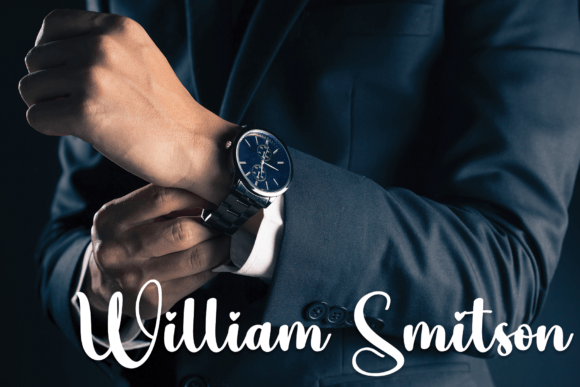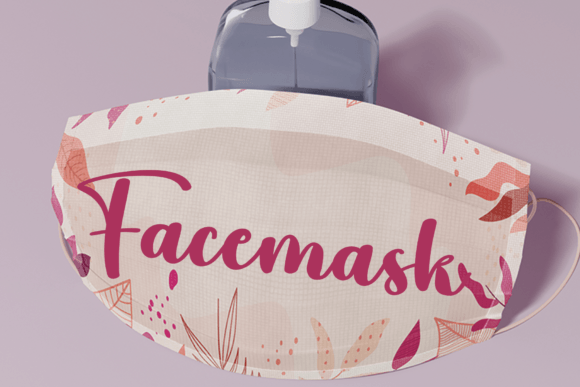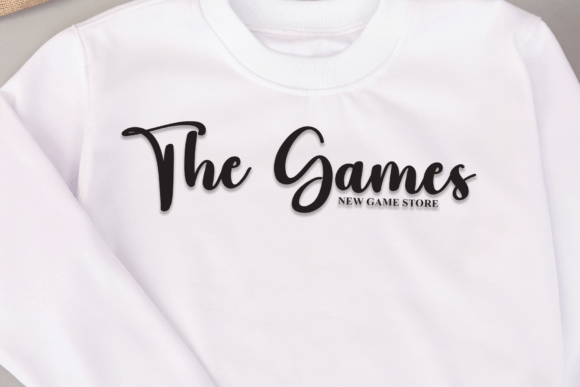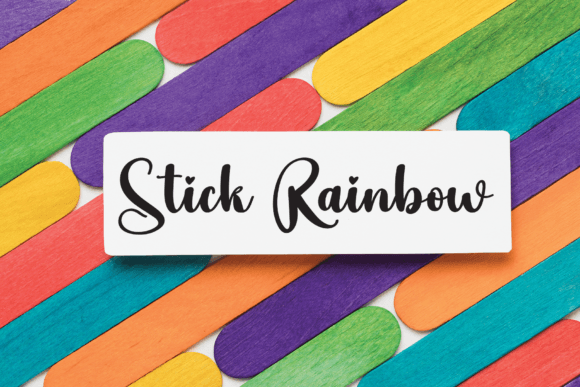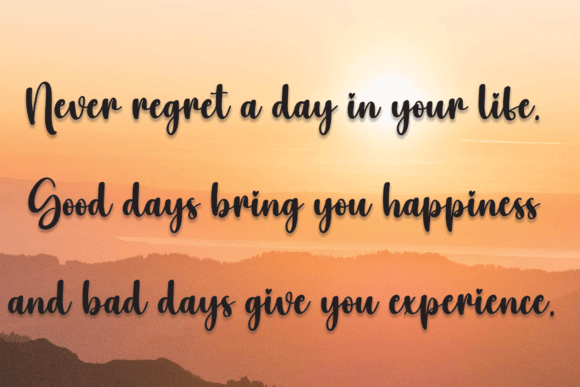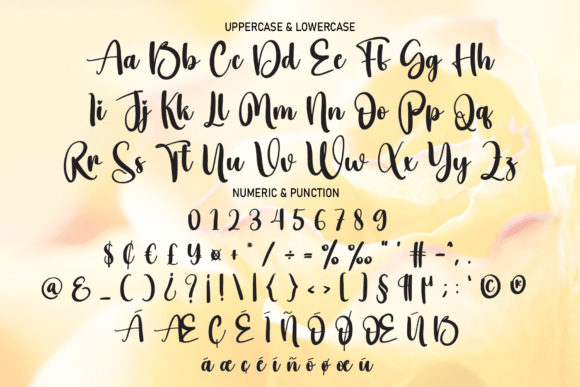
Introduction to Mild Font
As a designer, you know the thrill of finding the perfect font for your next project. It’s that ‘aha’ moment when everything falls into place, and your design comes alive. For me, it was when I stumbled upon the Mild Font, a game-changing addition to any creative project. Its unique, handwritten style is a breath of fresh air in a world of digital design.
The Mild Font is more than just a font – it’s a design resource that adds a personal touch to your work. With its high-quality, elegant lines, it’s perfect for wall displays, wedding invitations, and social media post logos. And the best part? It’s available for free download, making it an instant favorite among designers.
Whether you’re working on a commercial project or just want to add some personality to your stationery, the Mild Font is a valuable addition to your design arsenal. Its versatility and beauty make it a must-have for any designer looking to elevate their work.
Key Features of Mild Font
- High-quality design for creative projects: Mild Font is designed to add a touch of elegance to any project, making it perfect for use in graphic design, web design, and more.
- Transparent background: This feature allows for seamless integration with any design, giving you the freedom to use Mild Font in a variety of backgrounds and settings.
- Unique characteristics: Mild Font features a distinctive, hand-drawn style that sets it apart from more generic fonts, making it a great choice for designers who want to add some personality to their projects.
Honest Review: Mild Font
I recently stumbled upon the Mild Font and I must say, it’s been a refreshing addition to my design arsenal. This high-quality font has been a game-changer for my creative projects, especially when paired with a transparent background.
- Wide range of applications: From headings to body text, Mild Font adapts seamlessly to various design scenarios.
- Stylish and versatile: The font’s elegant design and versatility make it perfect for a wide range of creative projects, from brochures to websites.
- Limited customization options: While the font is beautiful, I wish there were more customization options available for users who want to tweak the design.
- No bold or italic variants: The font’s lack of bold or italic variants can be a limitation for designers who need to emphasize certain text elements.
Overall, I’m impressed with Mild Font and its potential to elevate my design projects. Its high-quality design, free availability, and wide range of applications make it a valuable addition to any design library.
Tips for Getting the Most Out of Mild Font
For a high-quality result, use Mild Font in conjunction with a high-resolution image. Experiment with different font sizes and colors to create a visually appealing design. Consider combining Mild Font with other design resources, such as vectors and icons, to create a unique and creative project.
Mild Font is ideal for a variety of projects, including logos, brochures, and social media graphics. It’s also a great choice for creating free download resources, such as printable art and planners. With its transparent background and high-quality design, Mild Font is a versatile design resource that’s perfect for any creative project.